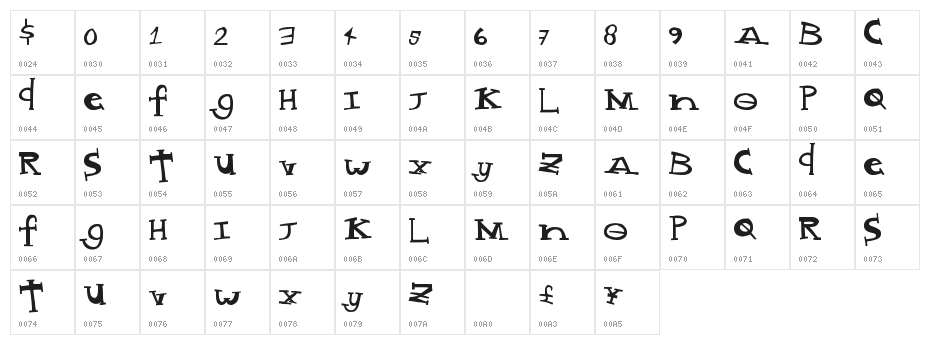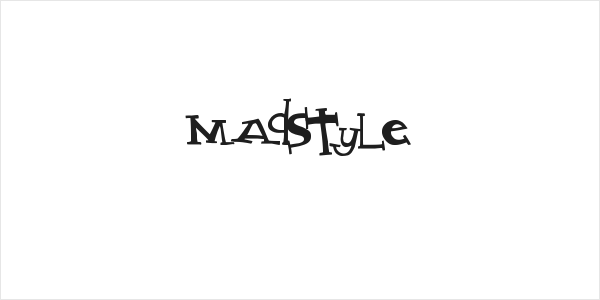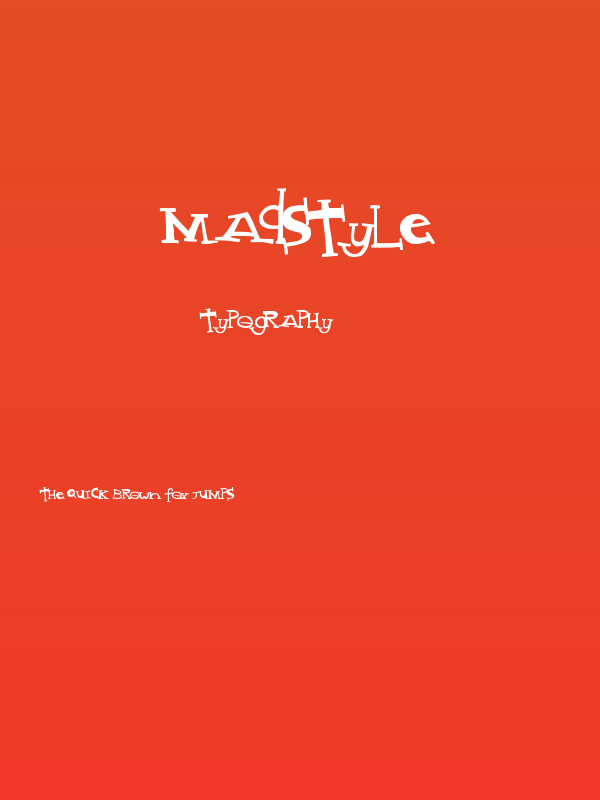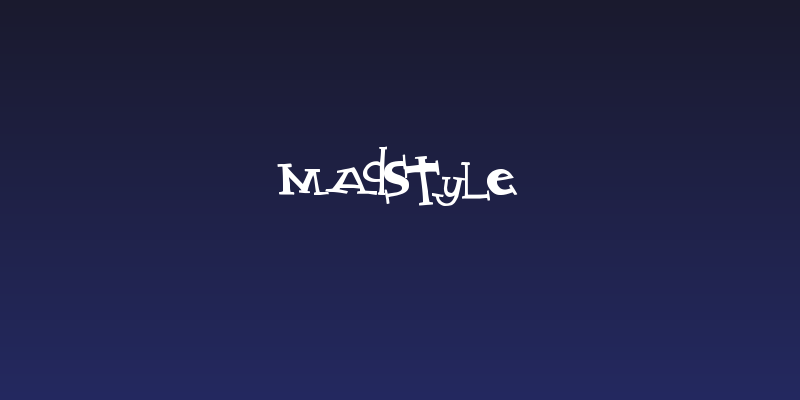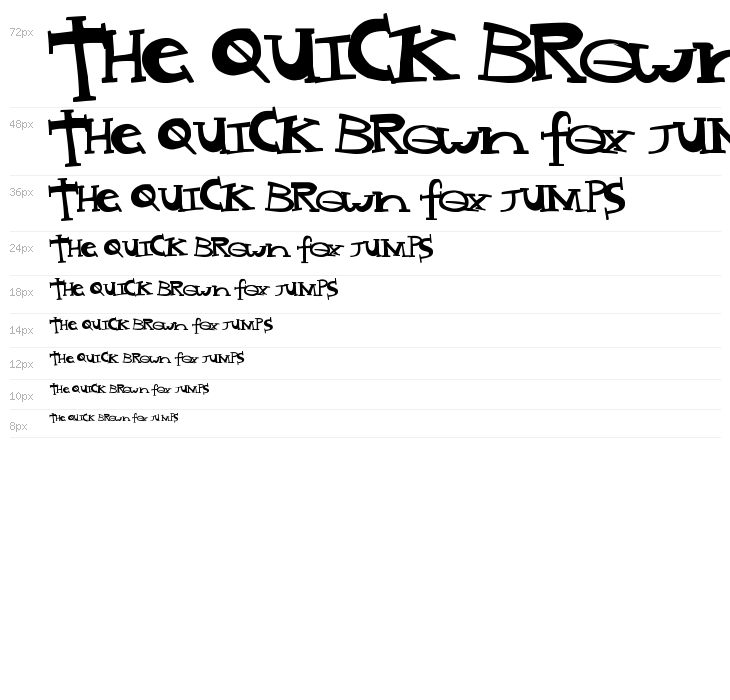
MadStyle Font
MadStyle Description
This font features a playful and whimsical design, characterized by its irregular and quirky letterforms. The characters exhibit a hand-drawn aesthetic with exaggerated curves and angles, creating a sense of movement and energy. The uppercase and lowercase letters maintain a consistent style, while the numerals and special characters complement the overall design. The font's unique style makes it stand out, offering a creative and artistic vibe suitable for various applications.
| Overall Style | Whimsical, Artistic |
| Proposed Projects | Ideal for children's books, playful branding, creative posters, and artistic invitations. |